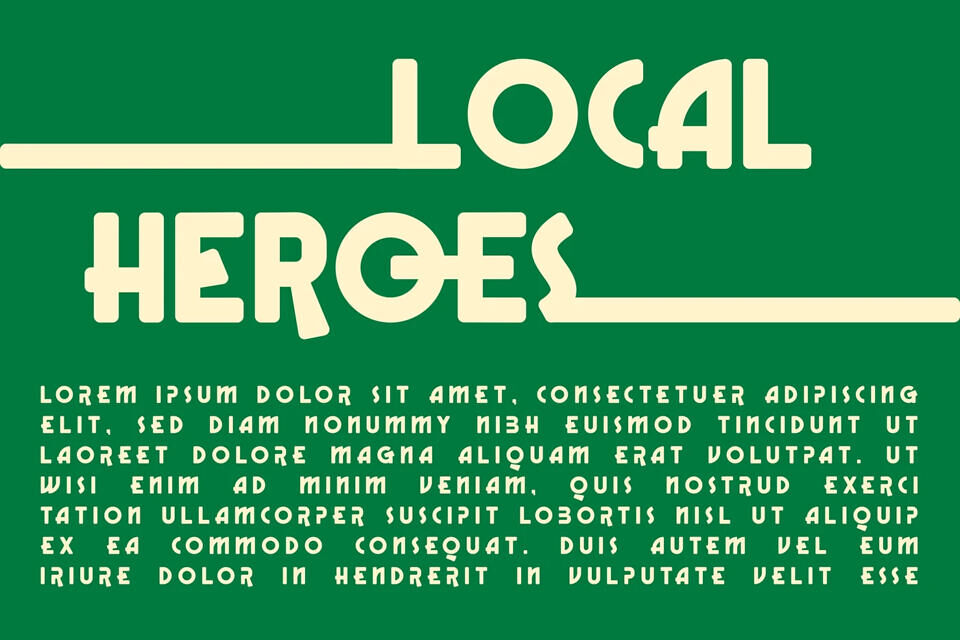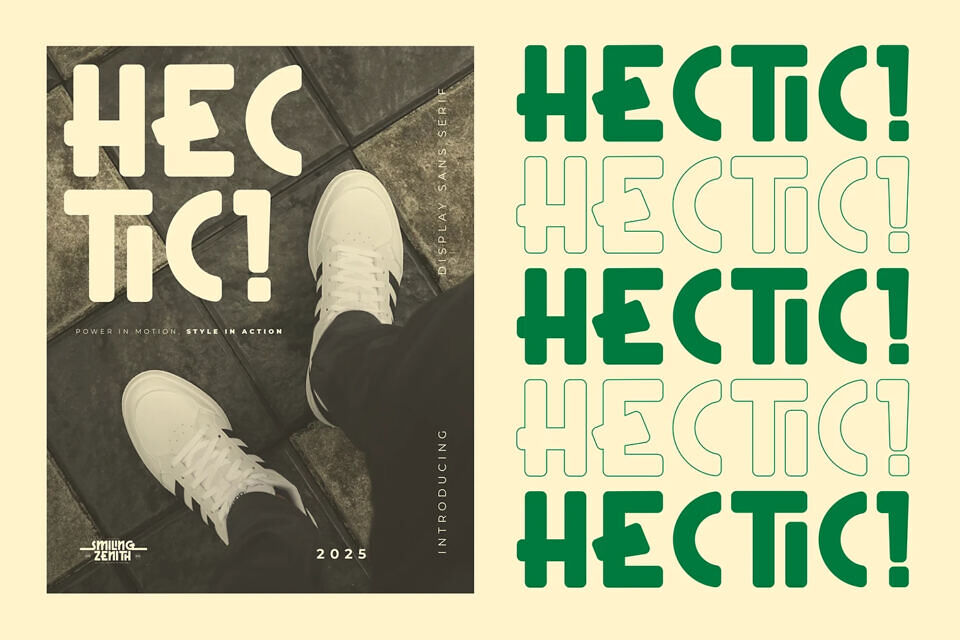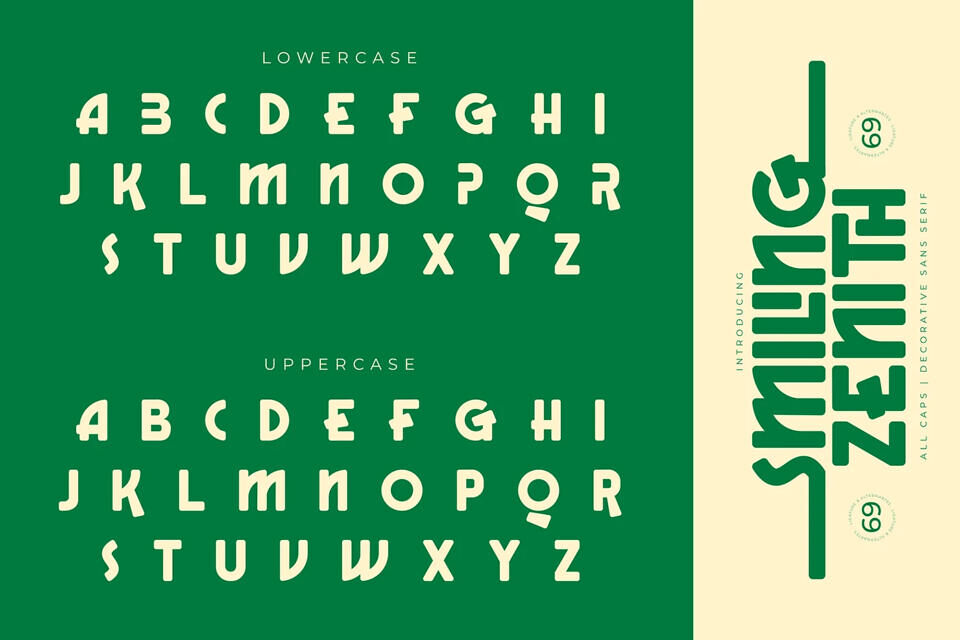
Smiling Zenith Font
Smiling Zenith is a bold all-caps decorative sans serif that blends retro charm with modern playfulness. Its geometric structure features smooth curves, sharp cuts, and unique ligatures that create striking visual connections. With versatile alternates, swashes, and stylistic underscores, it offers endless creative possibilities for logos, posters, and headlines.
The font’s playful rhythm and quirky letterforms give it a dynamic personality, perfect for branding, travel themes, or eye-catching displays. Smiling Zenith balances readability with bold expression, making every word feel energetic, stylish, and full of character.